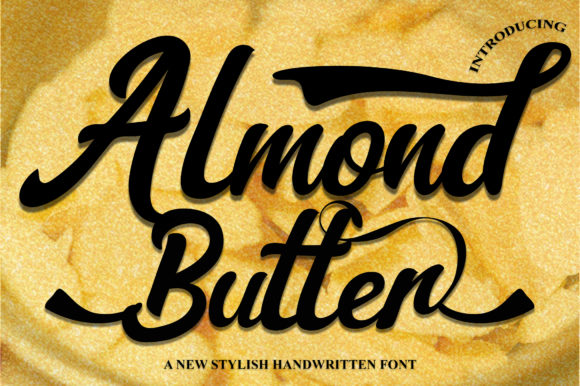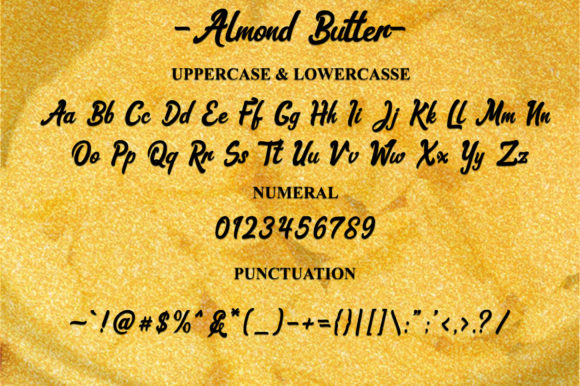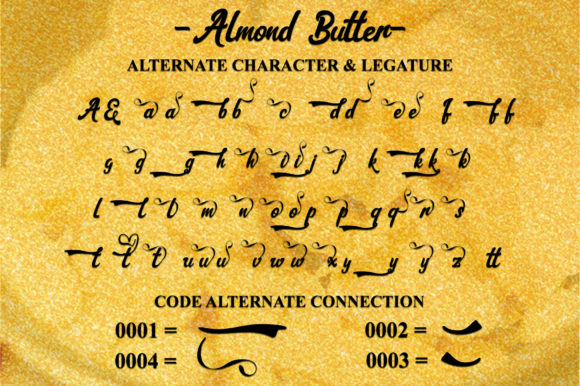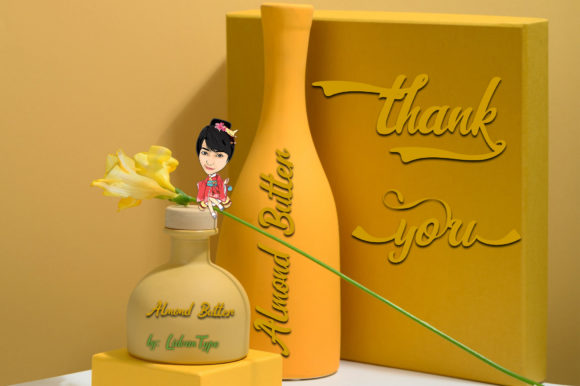
About Almond Butter Font
Almond Butter is a sweet, elegant and delicate handwritten font. It looks stunning on party invitations, book covers, greeting cards, quotes, logos, business cards and any other design that requires a personalized touch. This font is PUA encoded which means you can access all the glyphs and sweeps easily!